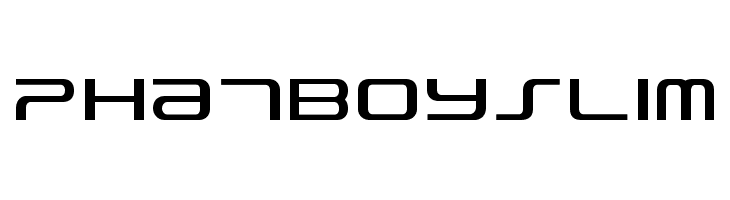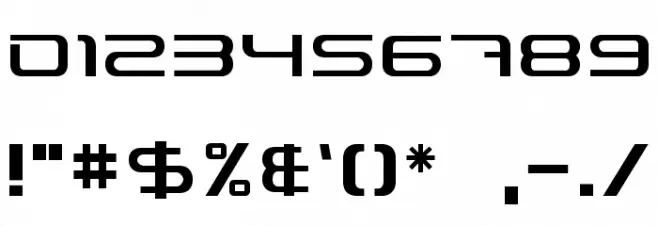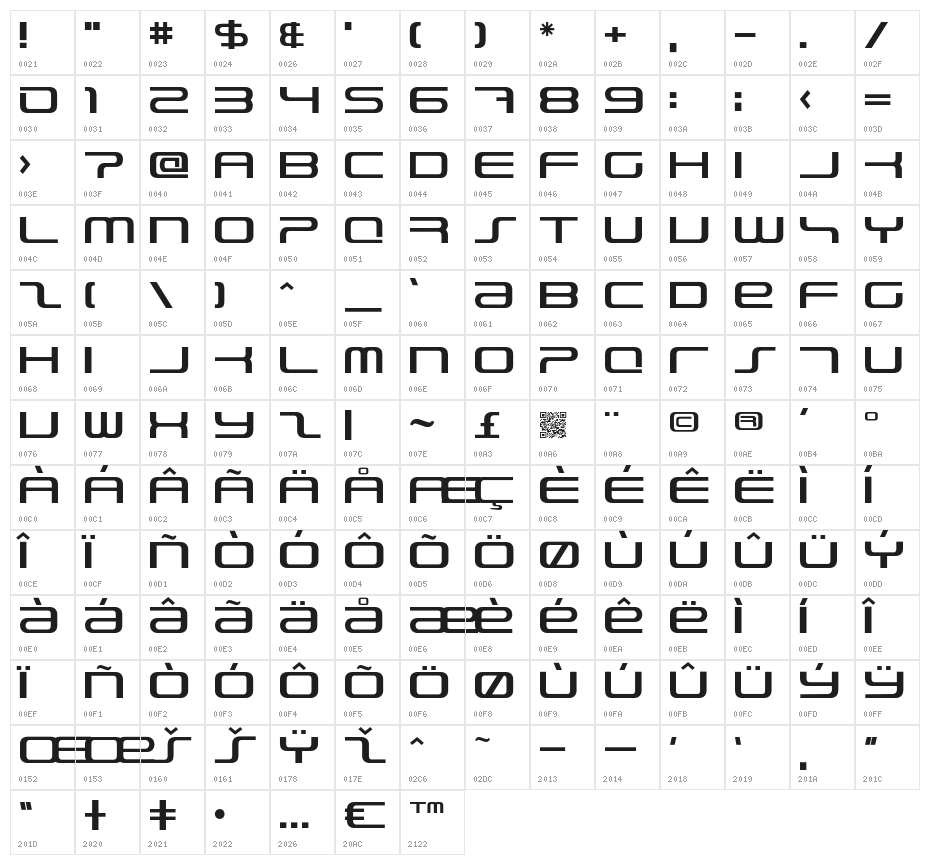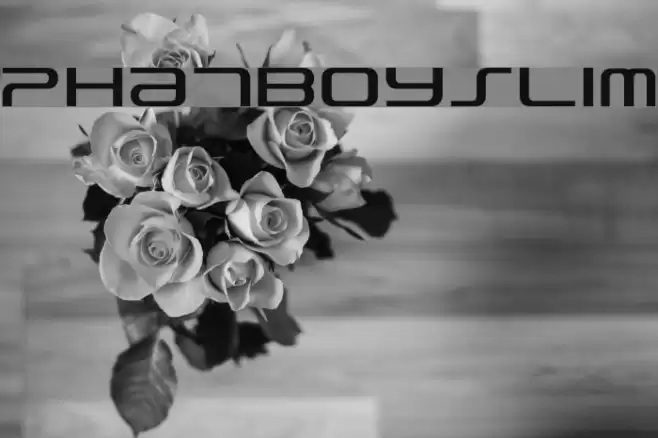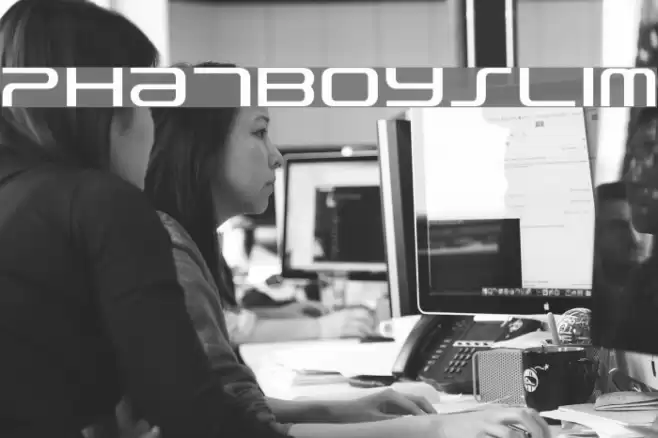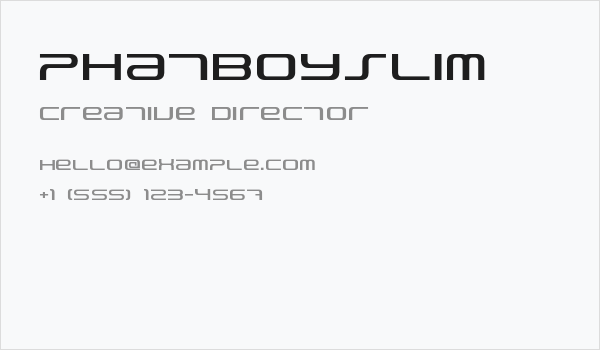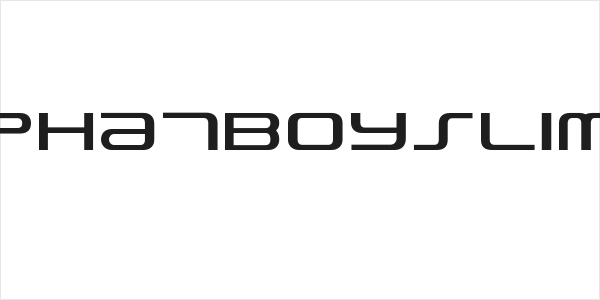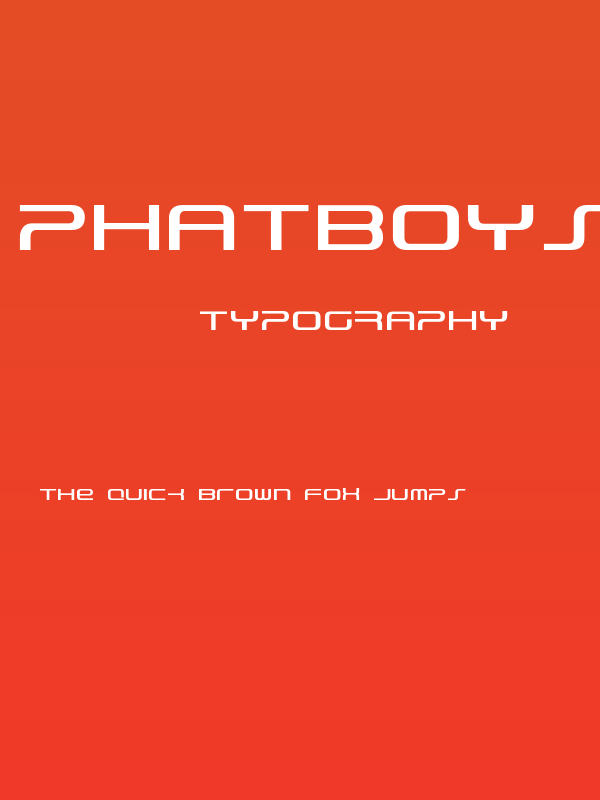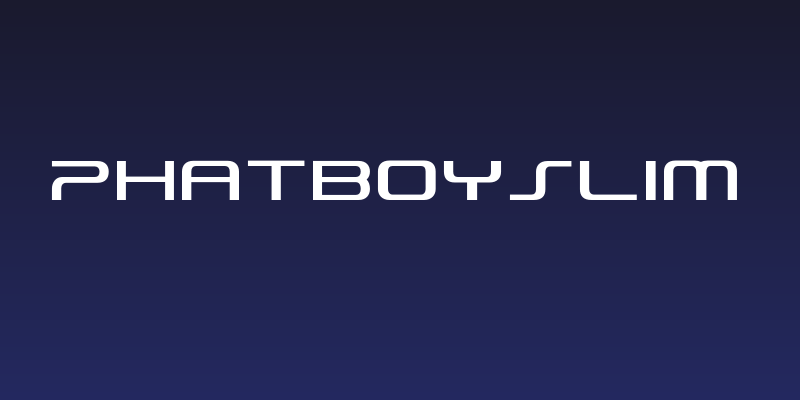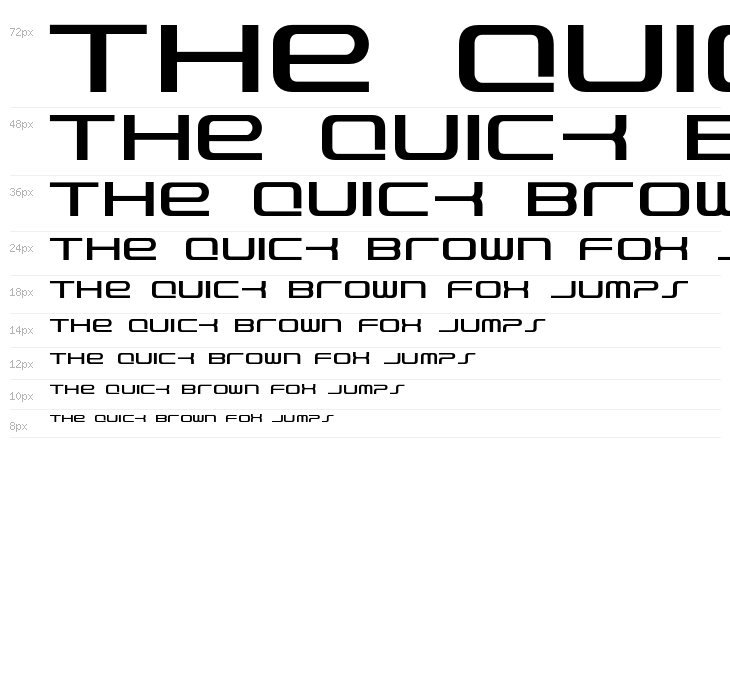
PhatBoySlim Font
PhatBoySlim Description
This font features a futuristic and geometric design with a distinctively modern appeal. The characters are constructed with clean, bold lines and rounded edges, giving it a sleek and contemporary look. The uppercase and lowercase letters maintain a consistent style, with unique angular cuts that add a sense of movement and dynamism. The numerals are equally bold and geometric, ensuring readability while maintaining the overall aesthetic. Special characters are designed to complement the letterforms, providing a cohesive visual experience. This font is ideal for projects that require a modern, tech-inspired feel.
| Overall Style | Futuristic, Geometric |
| Use Case | Headlines, Logos, Digital Interfaces |
| Proposed Projects | Ideal for tech branding, modern posters, digital interfaces, and futuristic designs. |